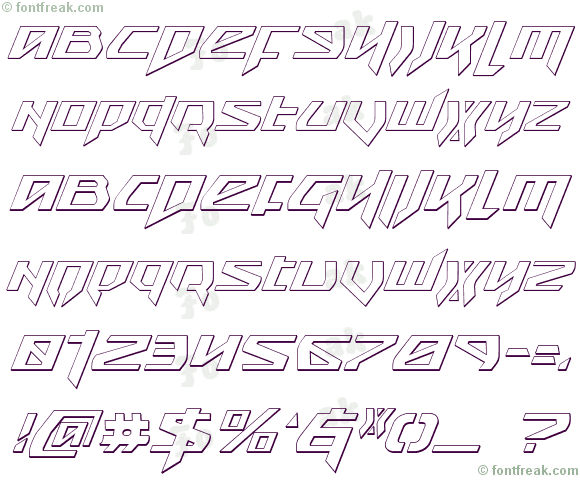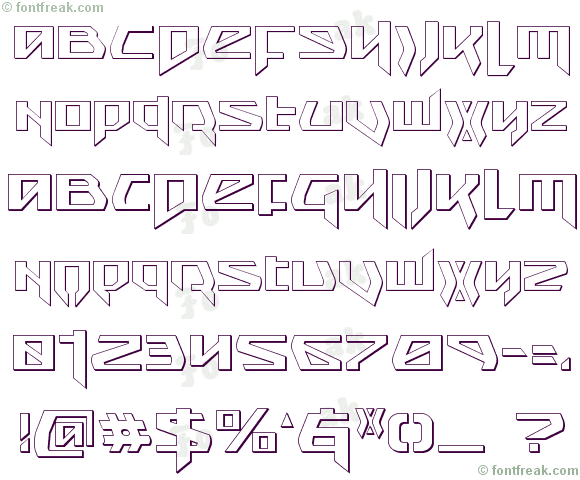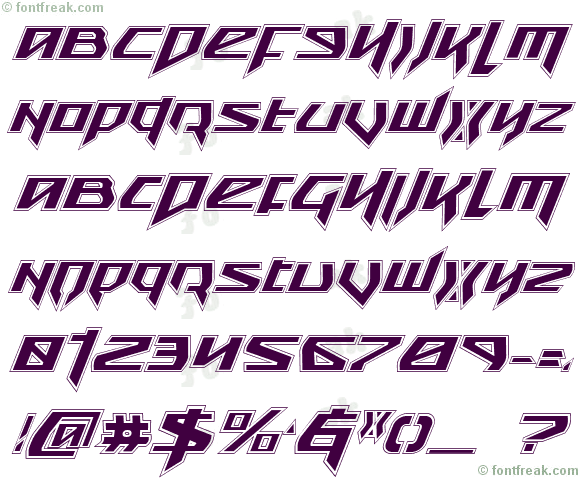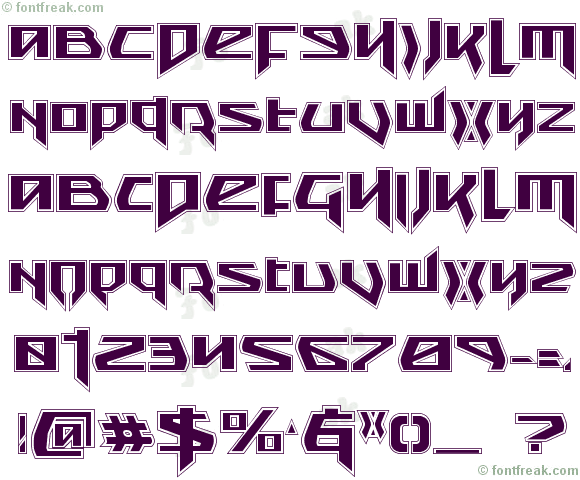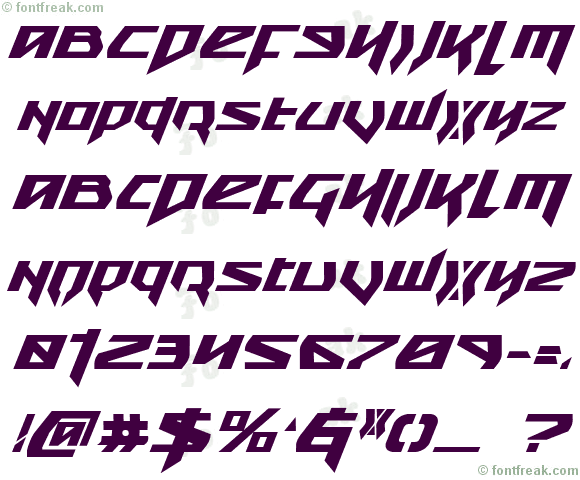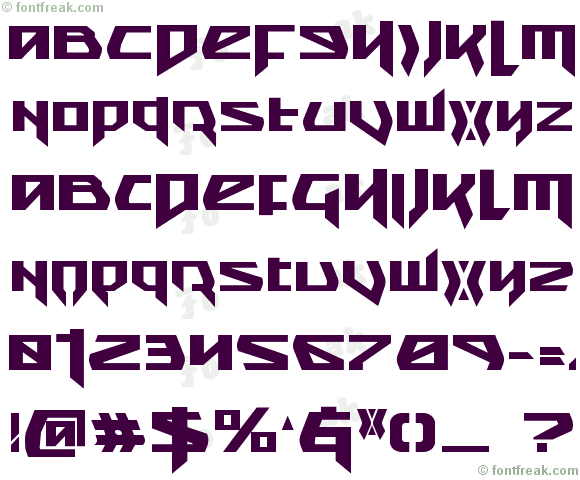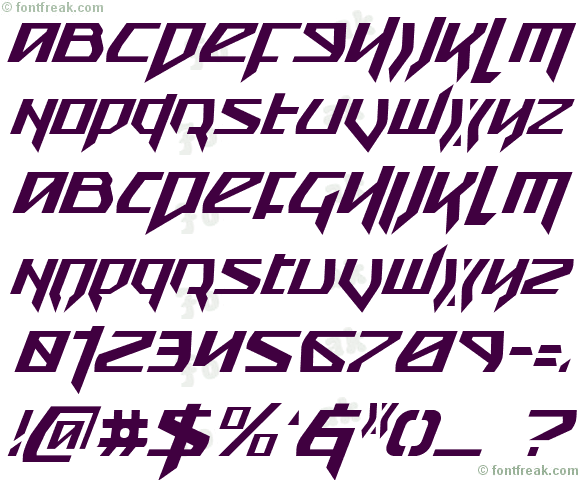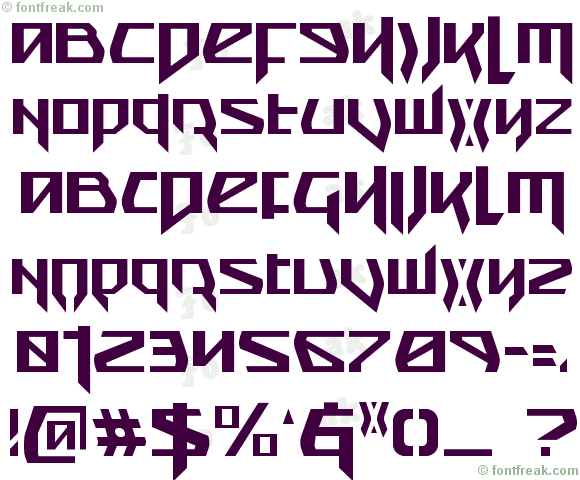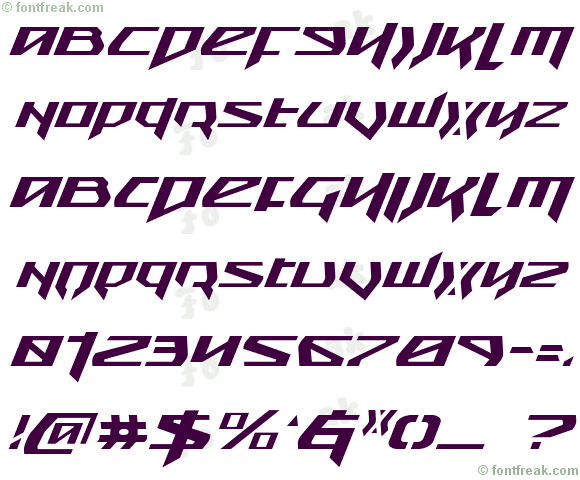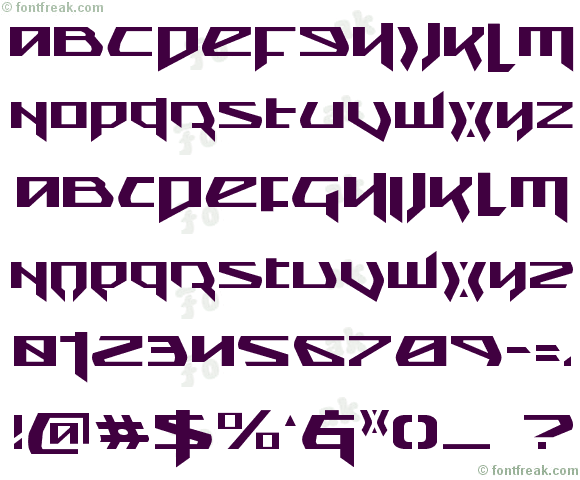
Snubfighter Leftalic
Snubfighter Condensed Italic
Snubfighter Expanded
Snubfighter Bold Italic
Snubfighter
Snubfighter Academy Italic
Snubfighter Outline
Snubfighter 3D
Snubfighter Bold
Snubfighter Phaser Italic
Snubfighter Outline Italic
Snubfighter Condensed
Snubfighter 3D Italic
Snubfighter Expanded Italic
Snubfighter Academy
Snubfighter Italic
Snubfighter Phaser
About Snubfighter
Snubfighter, designed by Iconian Fonts in 2009, is a striking display font that falls into the category of condensed italic typefaces. This unique font features bold strokes that convey a sense of strength and impact, making it an excellent choice for eye-catching designs. The letters are characterized by their sharp angles and dynamic slants, contributing to a modern and futuristic aesthetic. The overall spacing is tight, enhancing the condensed feel while maintaining legibility, even at larger sizes. With its distinct outline and 3D effects, Snubfighter stands out as a versatile option for various creative projects.
This font is ideal for a wide range of applications. It works beautifully for movie posters, where dramatic titles can capture the audience's attention. Additionally, restaurant menus can benefit from its boldness, adding a contemporary flair that complements modern dining experiences. Graphic designers will find Snubfighter particularly useful for branding materials, as it conveys a strong identity. Furthermore, it can enhance the visual appeal of digital content, such as website headers or social media graphics, making it a favorite among content creators.
What sets Snubfighter apart is its ability to merge a playful yet assertive design style with practicality. The combination of its bold, condensed structure and engaging visual elements allows it to make a lasting impression, ensuring that any project using this font will stand out. For those seeking a captivating typeface, the Snubfighter font free download is a must-have addition to any designer's toolkit.